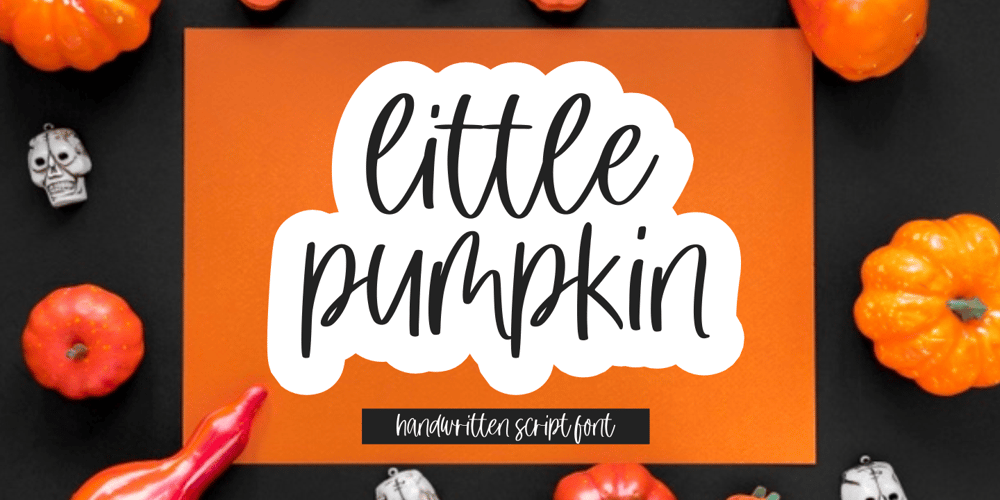
Little Pumpkin Font Family was designed by Muhammad Fikry and published by Fikryal. Little Pumpkin contains 1 styles and family package options. Little Pumpkin is a natural handwritten font perfect for crafting, branding, invitation, stationery, wedding designs, social media posts, advertisements, product packaging, product designs, label, photography, watermark, special events, or anything.Little Pumpkin comes with full set of uppercase and lowercase letters, multilingual symbols, numerals and punctuation.